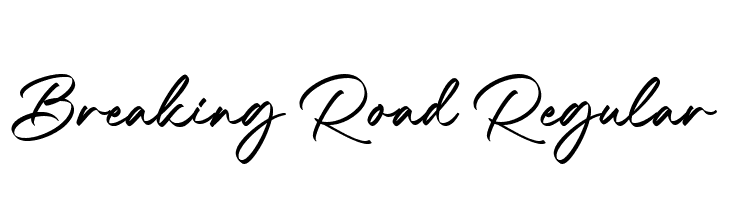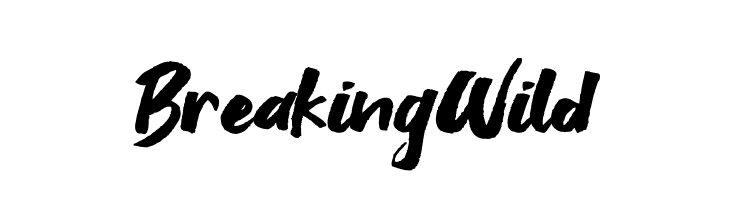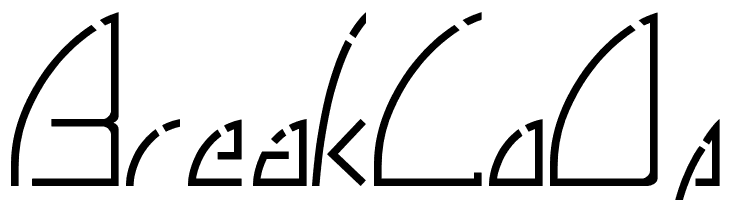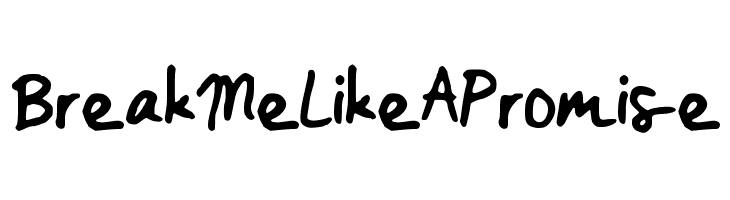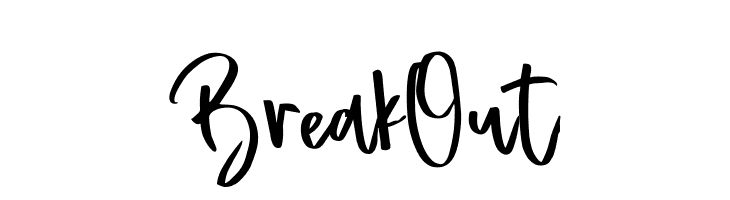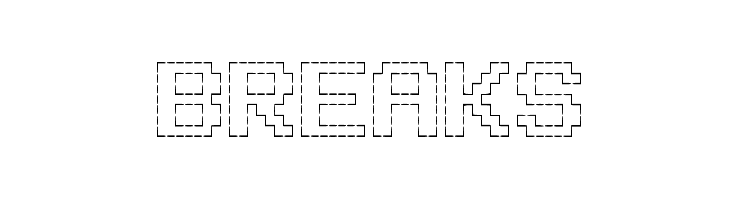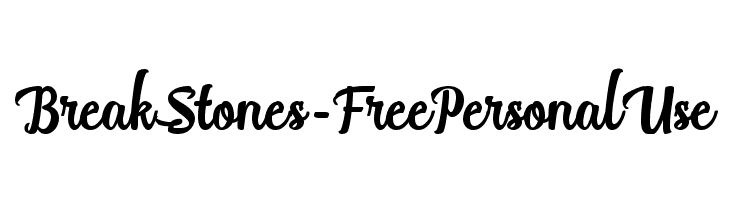
Handwritten cursive script font.
A bold, distressed comic-style font with playful, jagged edges.
A bold, brush-style script with an energetic, hand-painted look.
A modern, angular font with a geometric and futuristic style.
A bold, handwritten font with dynamic strokes and a playful style.
A lively handwritten font with expressive strokes and dynamic style.
A bold, flowing script font with smooth, rounded edges and a dynamic appearance.
A bold, expressive script font with flowing, cursive design.